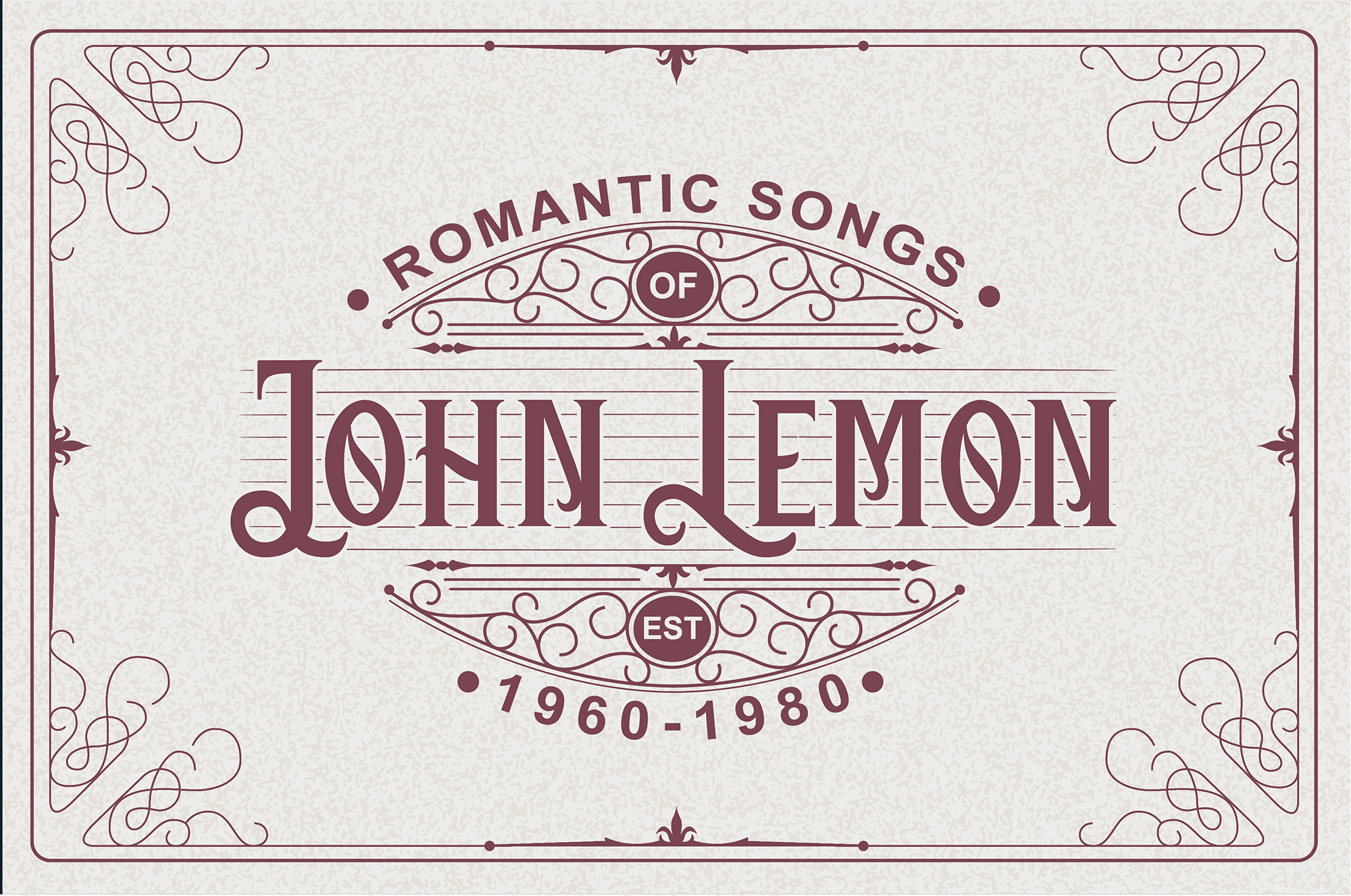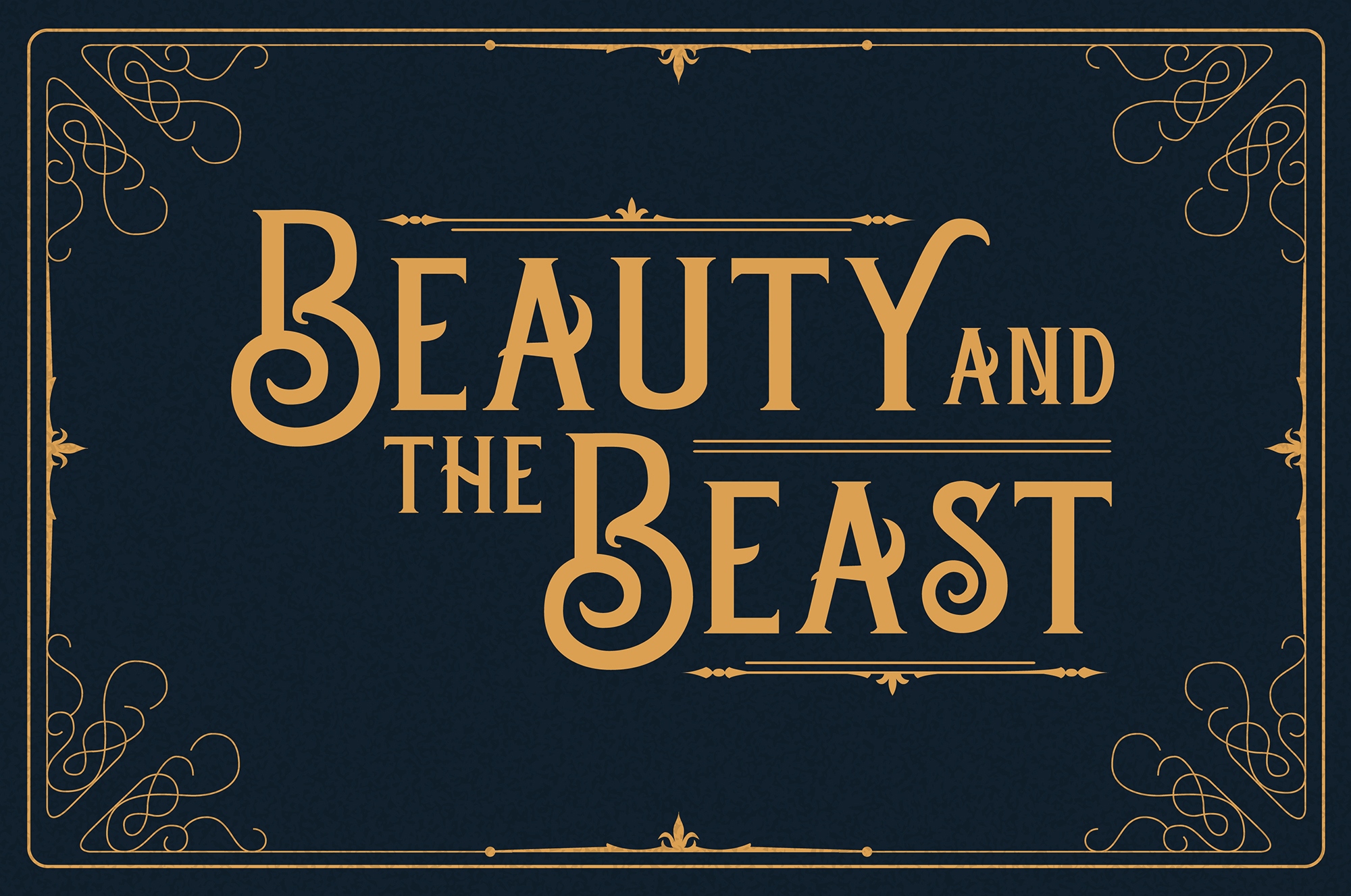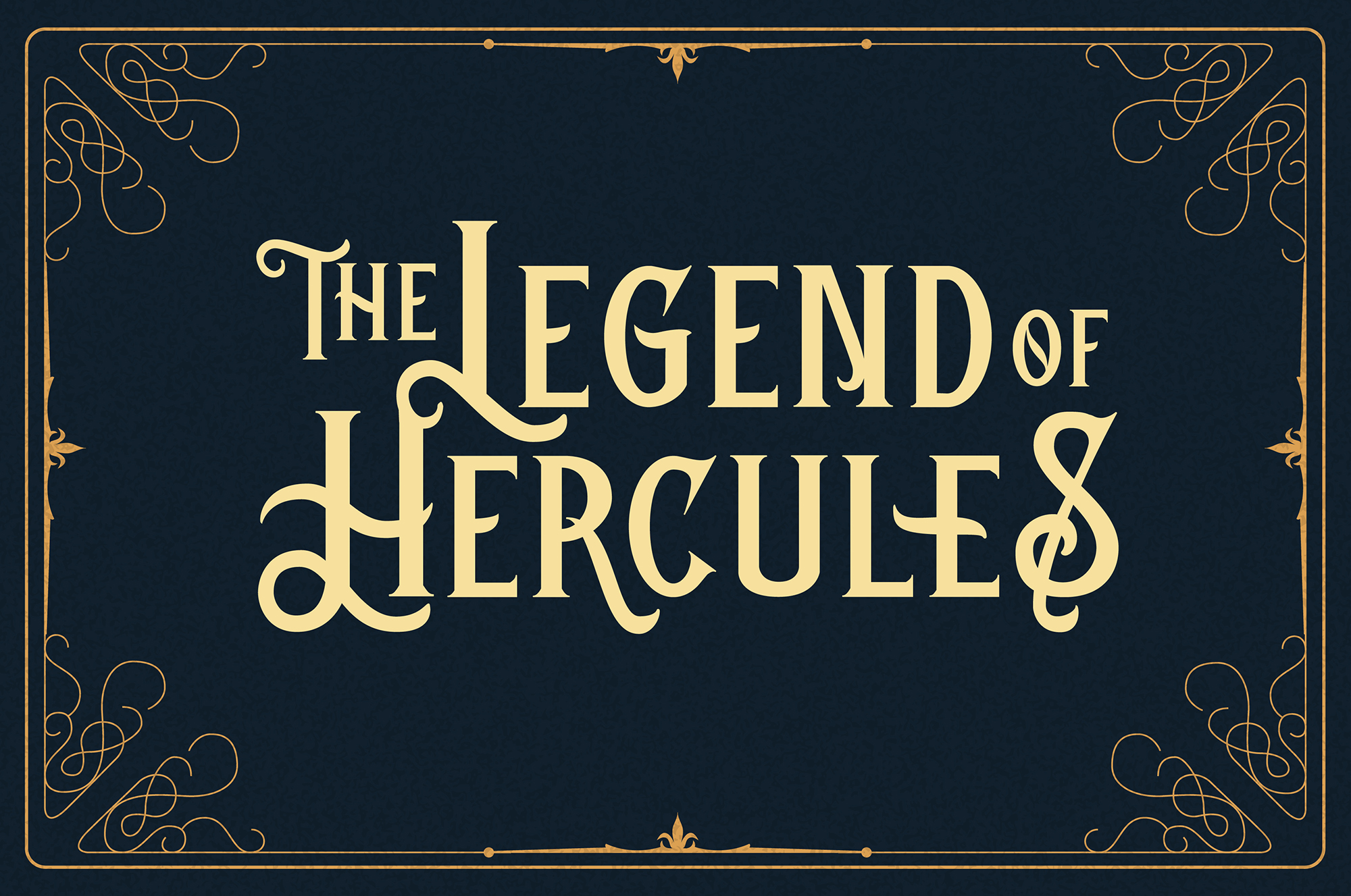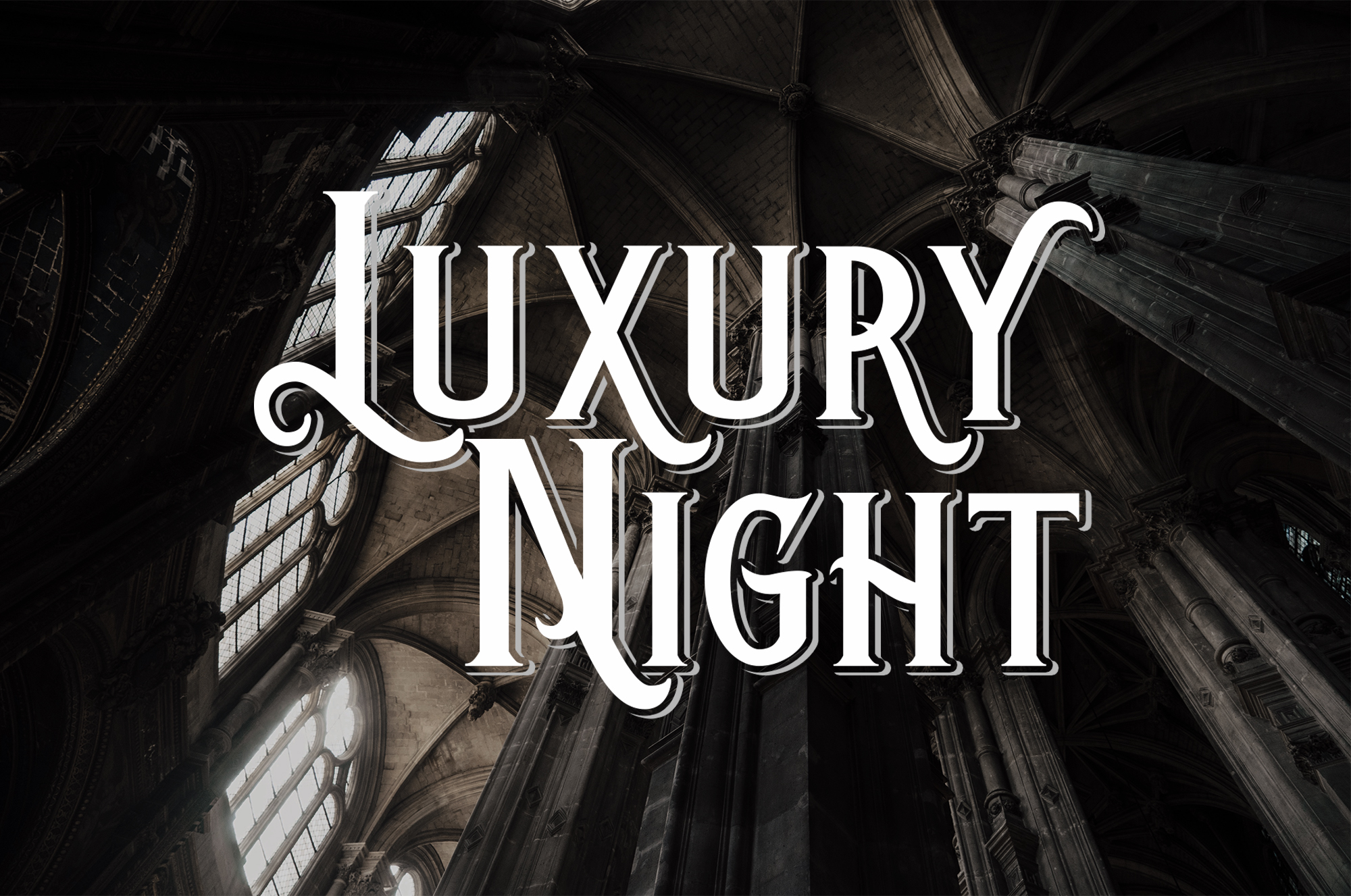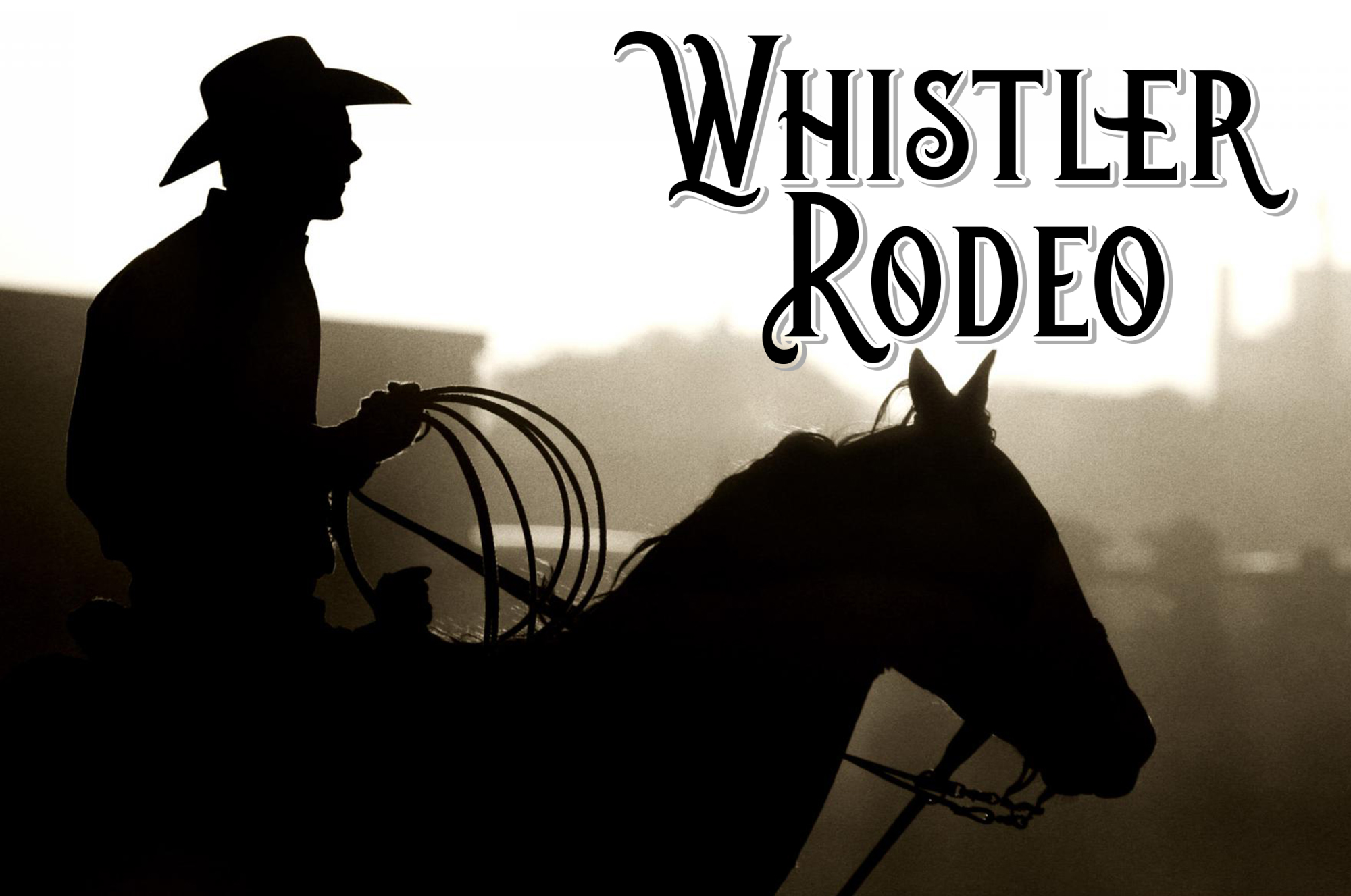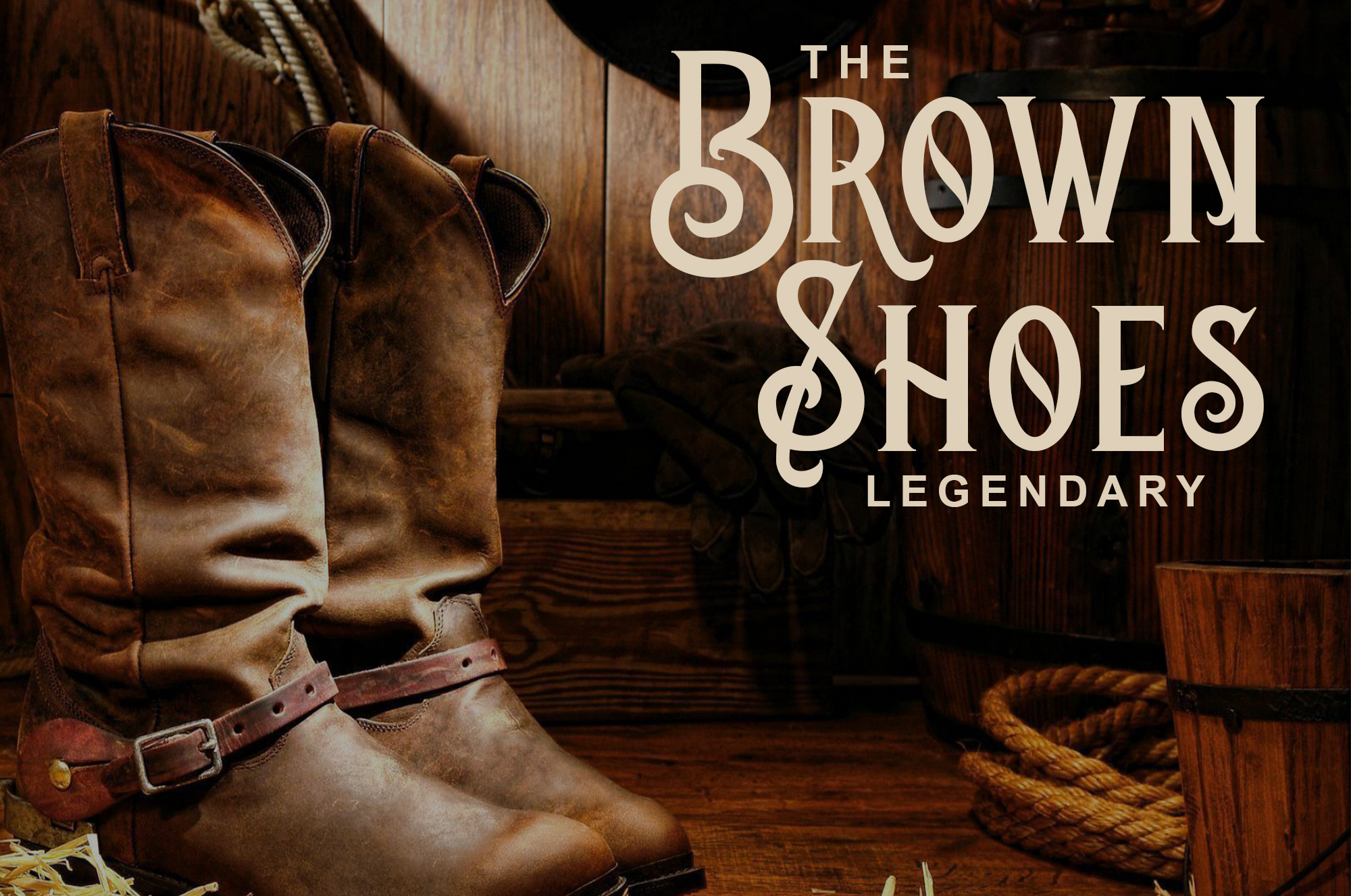
Unleash the Power of Vintage Signage with Black Django Font
Are you a designer or crafter looking for a unique and authentic font to add a touch of elegance to your designs? Look no further than the Black Django Font, a stunning vintage signage font that is sure to elevate your work. With its decorative shapes and classic style, this font is perfect for creating logos, posters, headlines, packaging, and even classical wedding designs.
The Charm of Black Django Font
The Black Django Font is a meticulously crafted font that exudes a sense of nostalgia and sophistication. Its vintage signage style is reminiscent of a bygone era, evoking memories of classic advertisements, storefronts, and posters from the early 20th century. The font’s decorative shapes and flourishes add a level of elegance and refinement, making it perfect for designs that require a touch of luxury and sophistication.
One of the best things about the Black Django Font is its versatility. Whether you’re working on a logo, poster, headline, or packaging design, this font is sure to make a statement. Its bold and eye-catching style is perfect for grabbing attention and making a lasting impression. Additionally, the font’s classic style makes it an excellent choice for classical wedding designs, such as wedding invitations, programs, and signage.
Authentic Touch for Your Designs
The Black Django Font is designed to add an authentic touch to your designs within seconds. Its vintage style is instantly recognizable, and its decorative shapes and flourishes are sure to transport your designs back in time. Whether you’re looking to create a retro-inspired design or simply want to add a touch of elegance to your work, this font is the perfect choice.
Key Features of Black Django Font
- Vintage Signage Style: The Black Django Font features a classic vintage signage style that is reminiscent of a bygone era.
- Decorative Shapes: The font’s decorative shapes and flourishes add a level of elegance and refinement to your designs.
- Perfect for Logos, Posters, and Headlines: The font’s bold and eye-catching style makes it perfect for creating logos, posters, and headlines that grab attention.
- Classical Wedding Designs: The font’s classic style makes it an excellent choice for classical wedding designs, such as wedding invitations, programs, and signage.
Tips and Tricks for Working with Black Django Font
- Experiment with Different Sizes: The Black Django Font looks great in a variety of sizes, from small and delicate to large and bold.
- Pair with Other Fonts: The font pairs well with other fonts, such as sans-serif fonts or script fonts.
- Use for Headlines and Titles: The font is perfect for headlines and titles, but can also be used for body text in smaller sizes.
The Black Django Font is a stunning vintage signage font that is sure to elevate your designs. With its decorative shapes and classic style, this font is perfect for creating logos, posters, headlines, packaging, and classical wedding designs. Its versatility, ease of use, and authentic touch make it an excellent choice for designers and crafters looking to add a touch of elegance to their work.